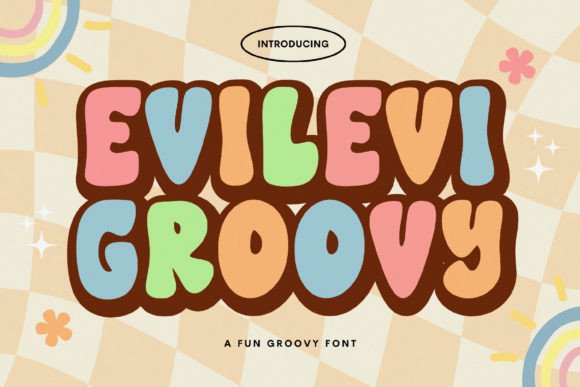
Step into the world of Evilevi Groovy, where typography takes on a life of its own. Crafted with meticulous care and an eye for detail, this display font is your gateway to expressing yourself in a way that resonates with hearts.
Picture this: you're designing an invitation for a special occasion, and the words dance across the page, evoking feelings of joy and love. Evilevi Groovy transforms ordinary text into a captivating spectacle, sure to leave a lasting impression.
Whether you're crafting a heartfelt message for a loved one or creating eye-catching headlines that demand attention, Evilevi Groovy is your go-to font for making a statement. Its playful retro charm adds a touch of nostalgia and warmth to any project, inviting your audience to connect with your words on a deeper level.
With Evilevi Groovy in your creative arsenal, you'll discover endless possibilities for expressing your unique style. From greeting cards that melt hearts to headlines that captivate imaginations, this font is your key to unlocking the power of words.
Embrace the allure of Evilevi Groovy today, and let your creativity soar to new heights. Its versatility and charm will ignite your imagination, empowering you to create designs that touch the soul and leave an unforgettable mark.